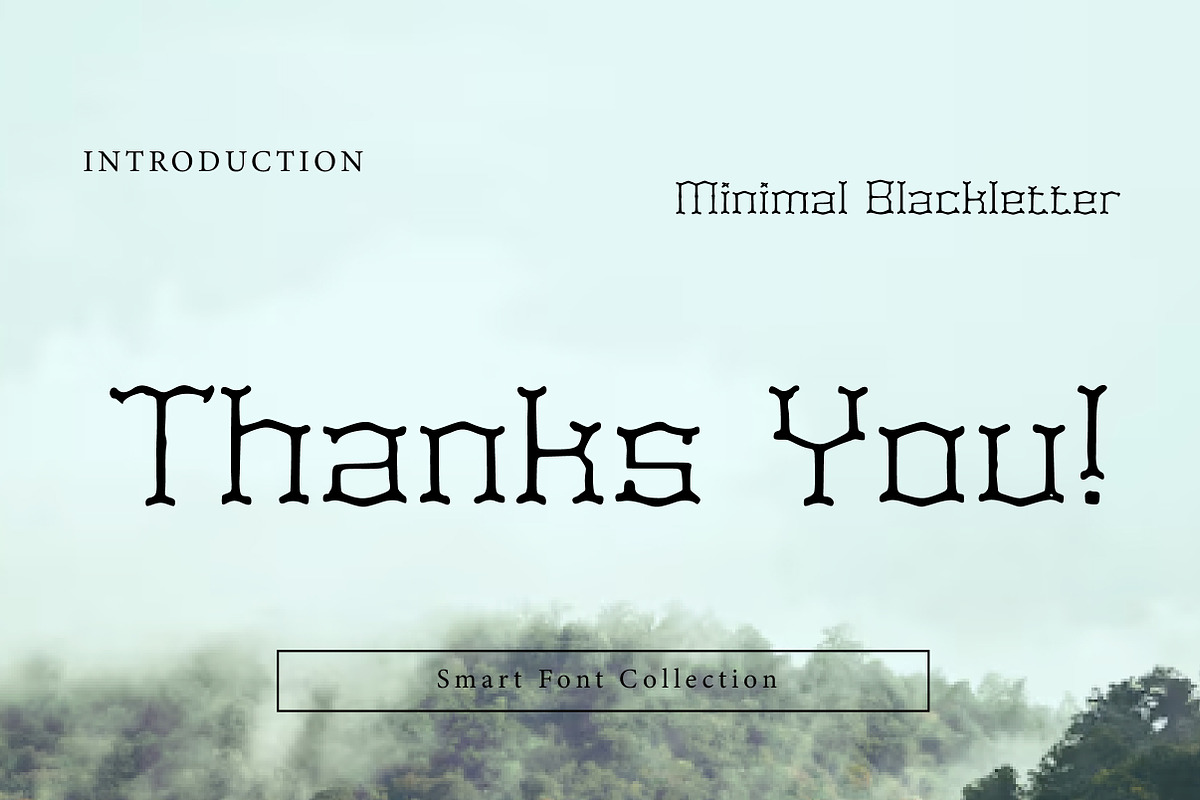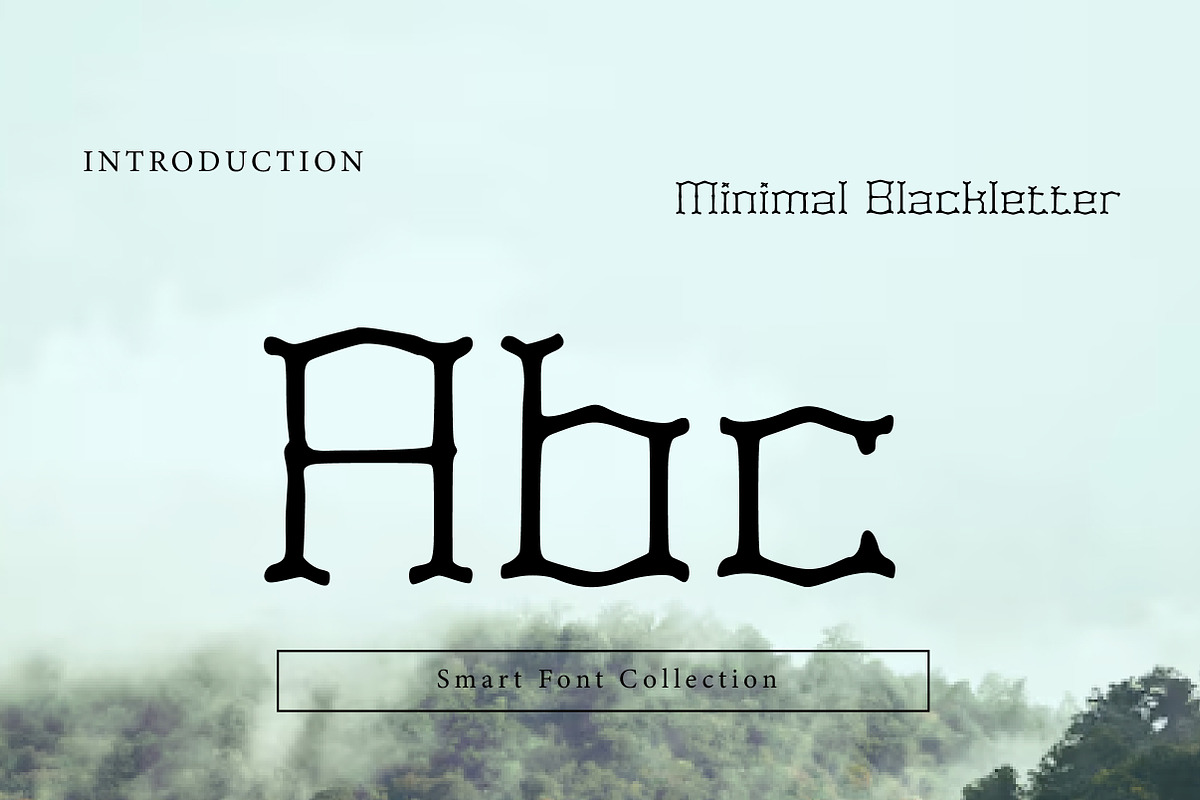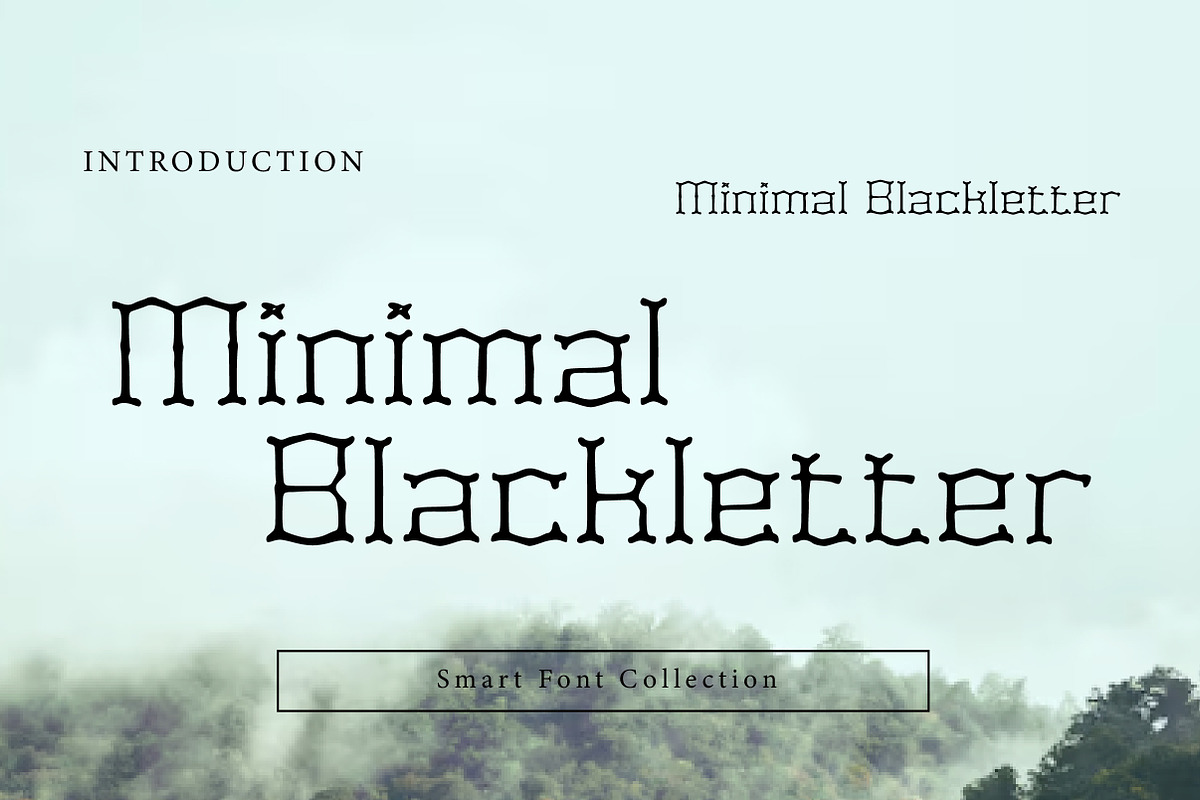
Minimal blackletter
Minimal Blackletter is a refined and simplified blackletter display font that keeps the classic Gothic / Old English character while removing heavy ornamentation. The clean, structured letterforms make it more readable and versatile, blending medieval influence with a modern minimalist touch.
Perfect for logos, branding, posters, book covers, editorial headlines, packaging, labels, apparel designs, certificates, tattoos, and dark aesthetic projects. If you want a blackletter font that feels classic yet clean, Minimal Blackletter delivers a balanced and timeless look.
Perfect for: Modern gothic branding, medieval-inspired themes, vintage typography, and strong statement titles.